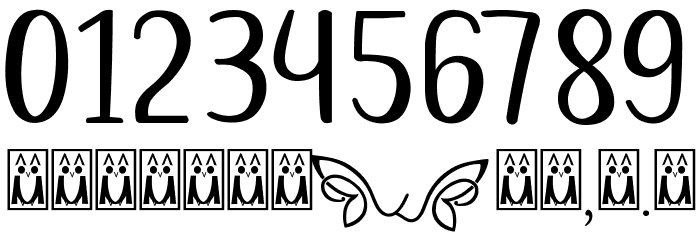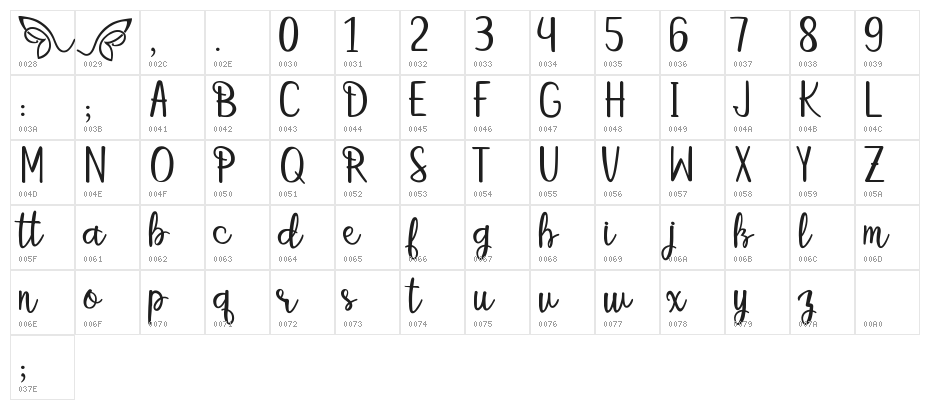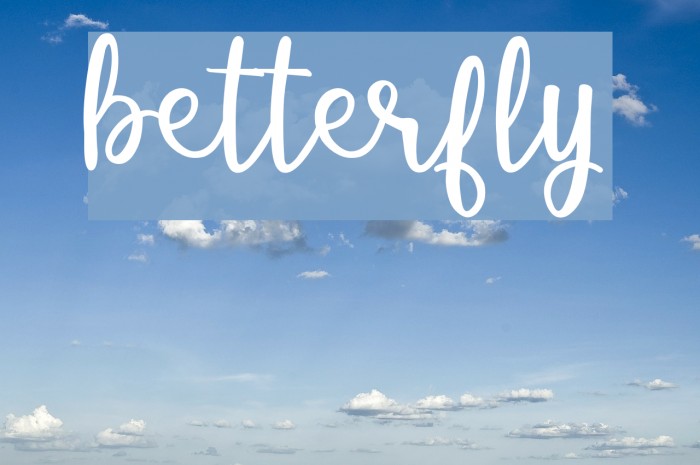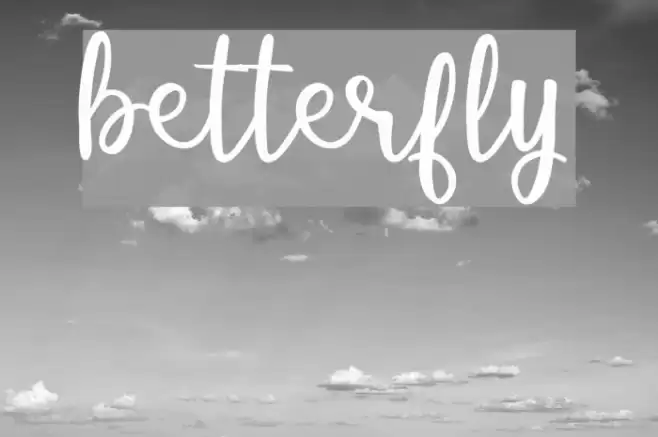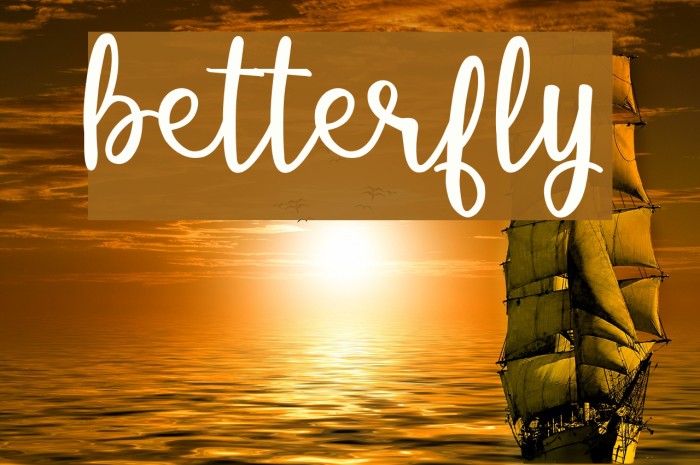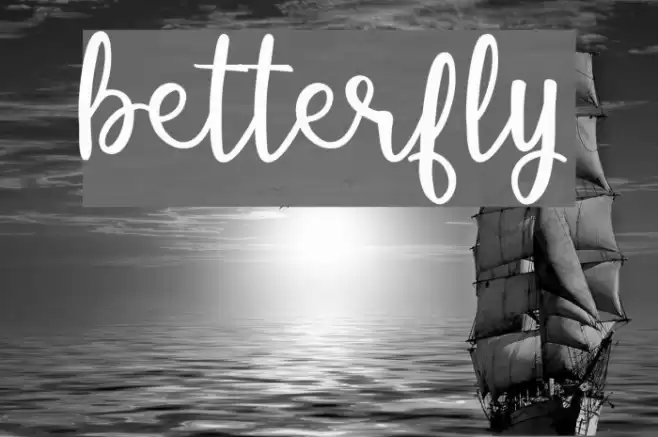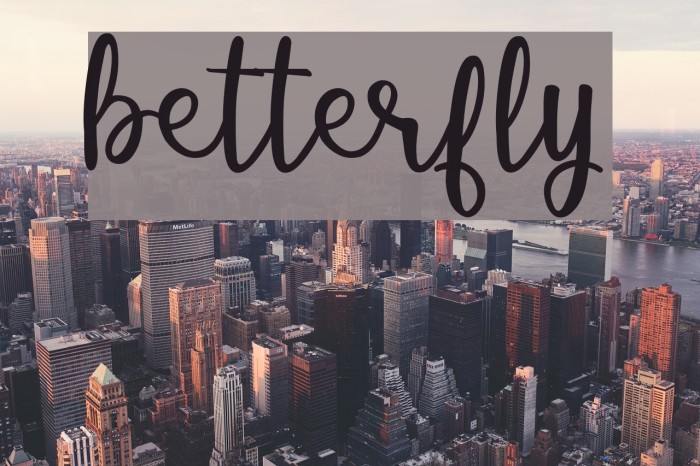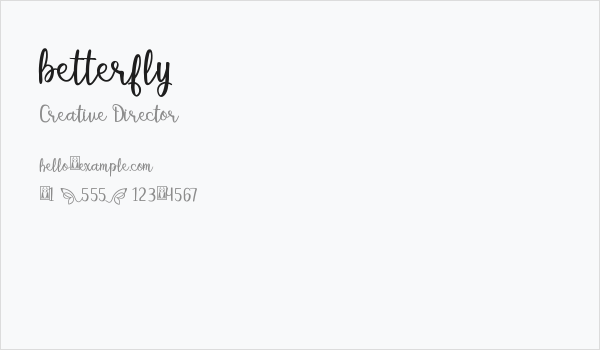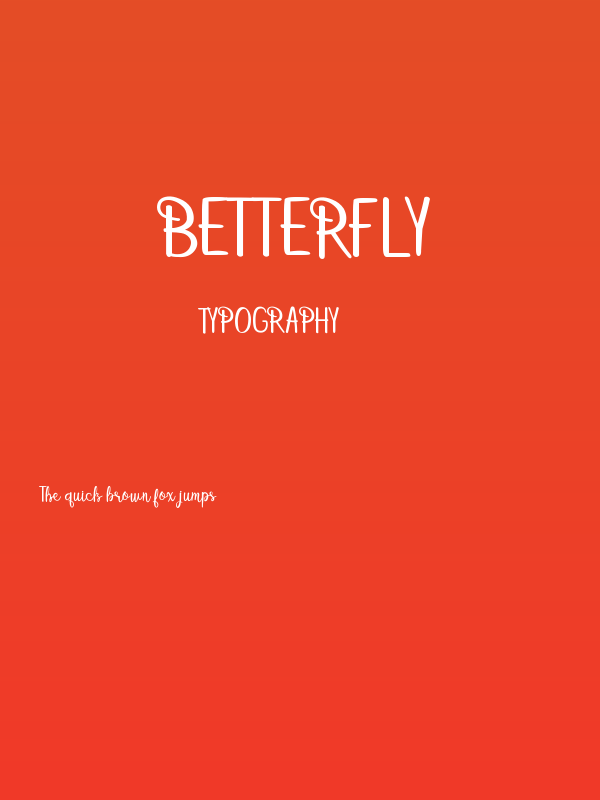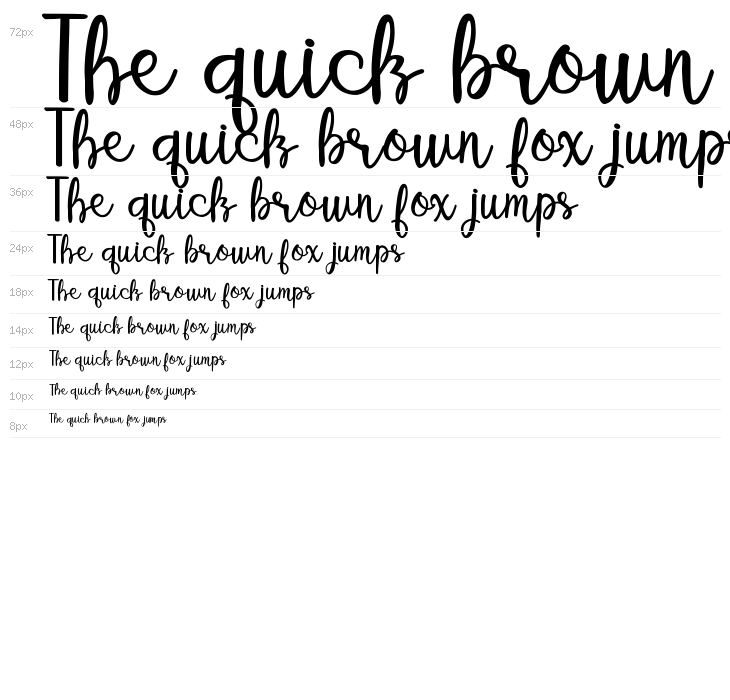
betterfly Font
betterfly Description
This font features a playful and whimsical style with a handwritten appearance. The uppercase letters are tall and slender, with a slight slant that adds a dynamic feel. The lowercase letters are more rounded and feature unique loops and curls, giving them a friendly and approachable look. The numbers are consistent with the overall style, maintaining the same playful curves. Special characters are designed with decorative elements, enhancing the font's charm. The font's overall design is cohesive, making it suitable for projects that require a touch of personality and creativity.
| Proposed Projects | Ideal for greeting cards, invitations, children's books, and playful branding projects. |